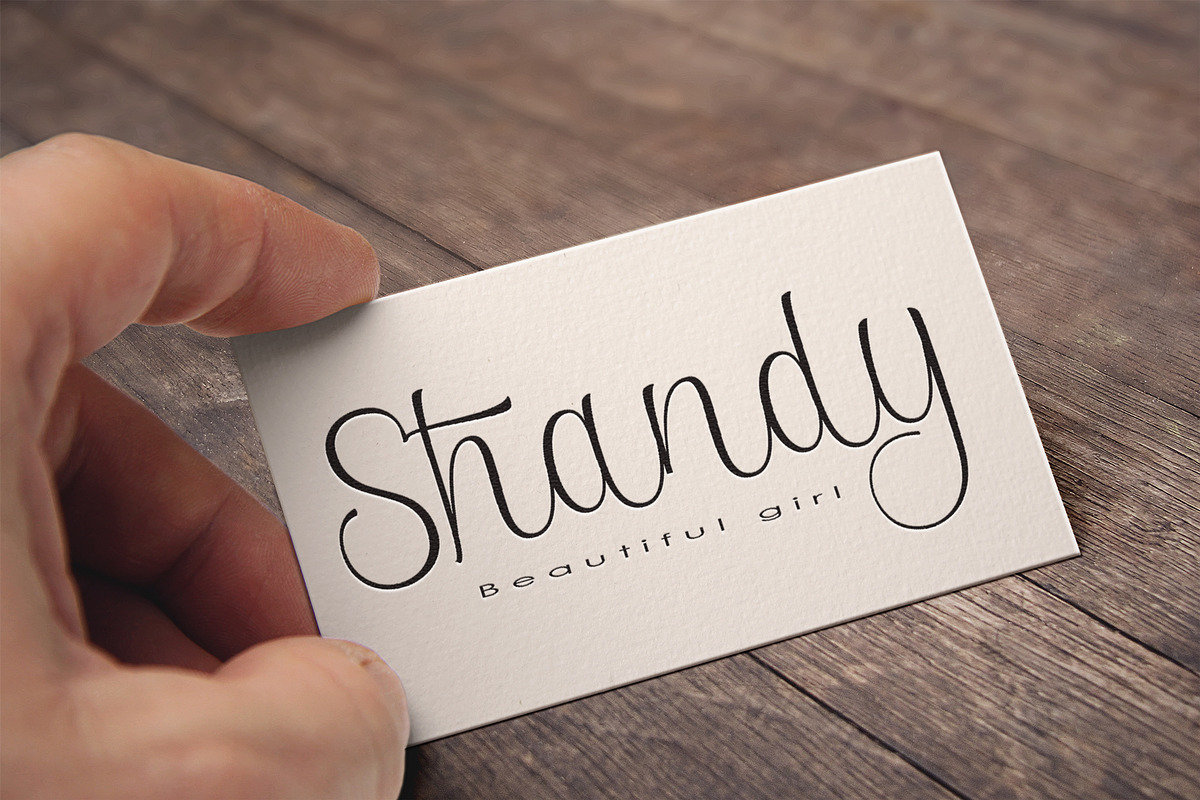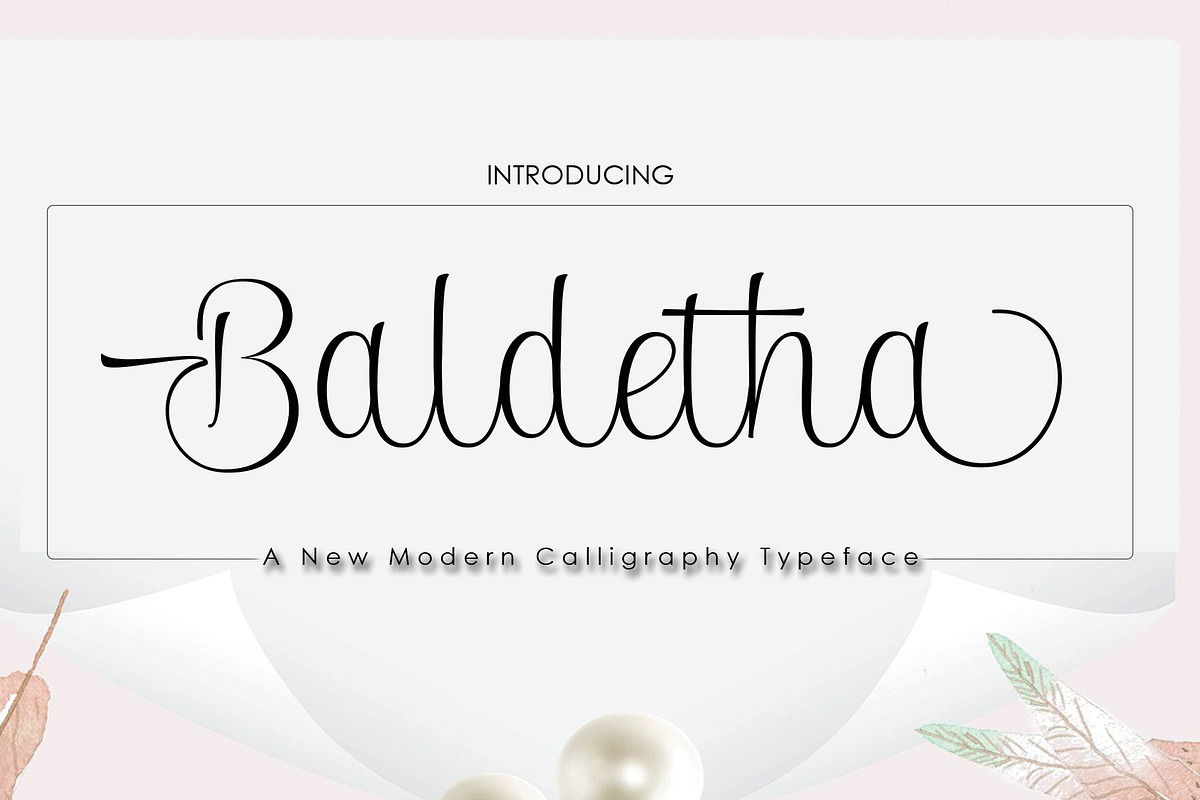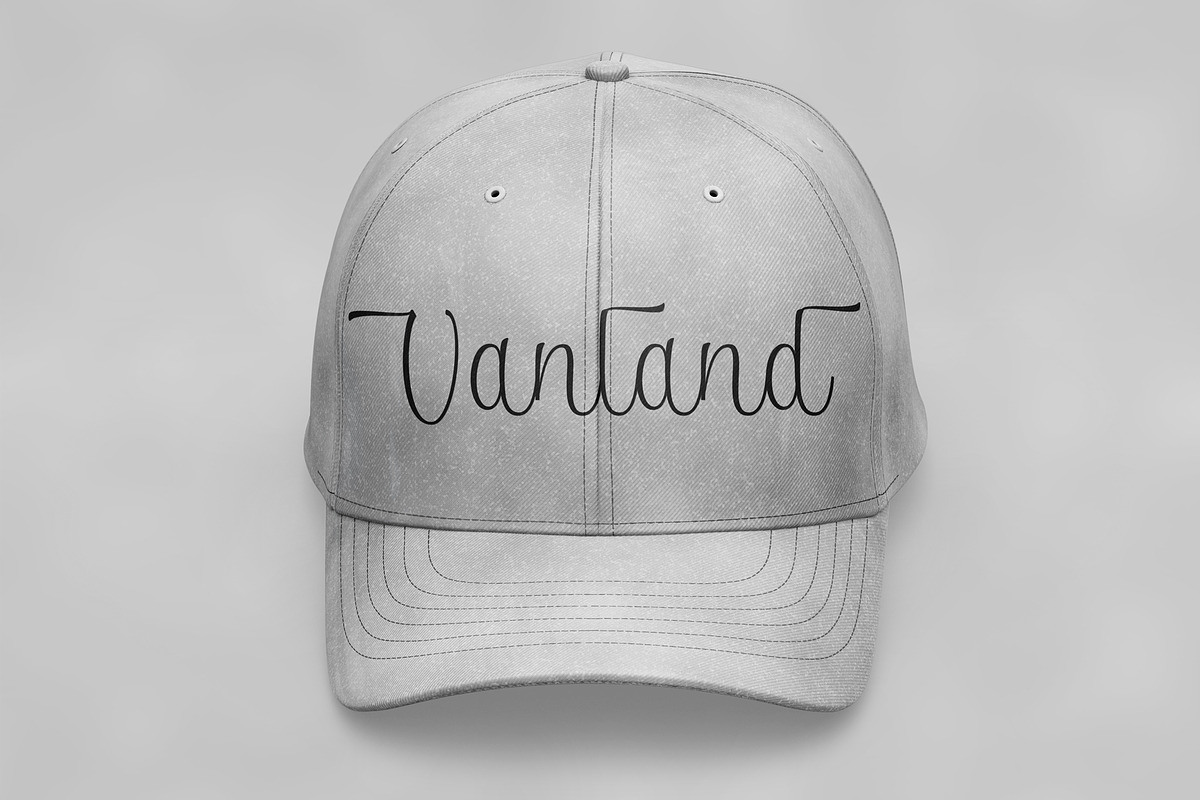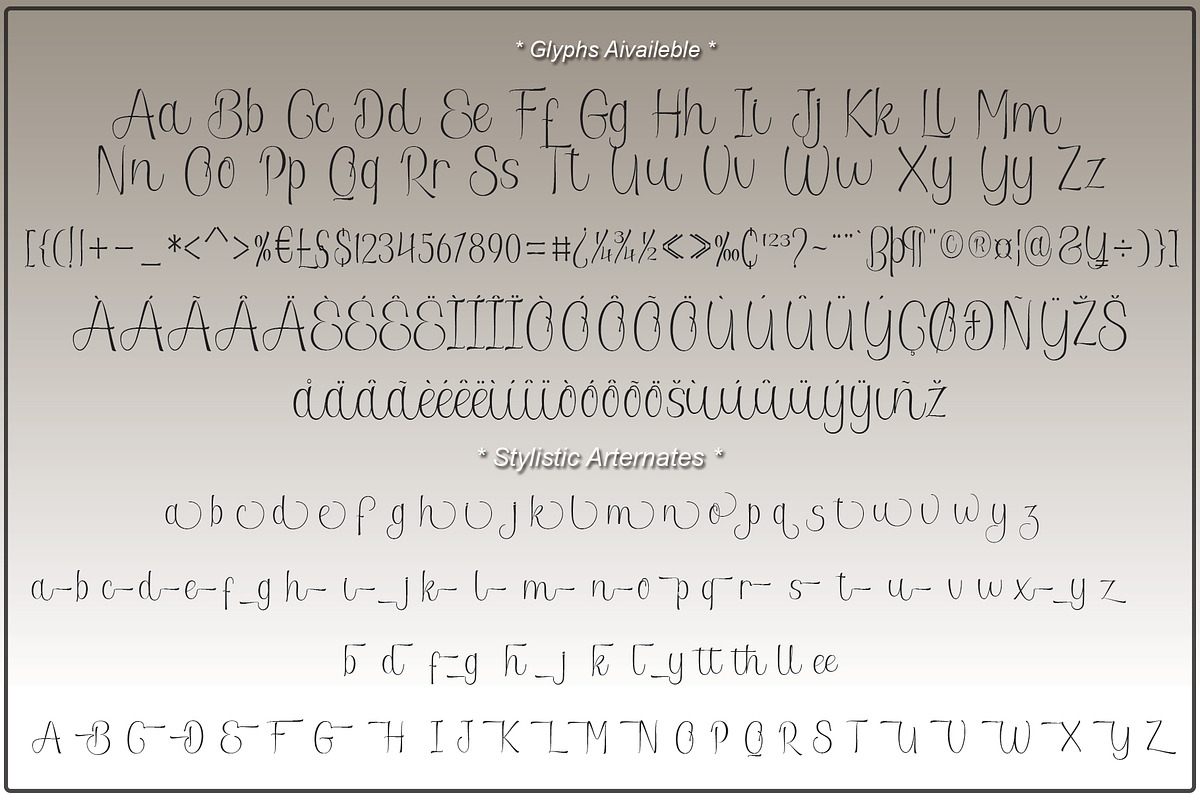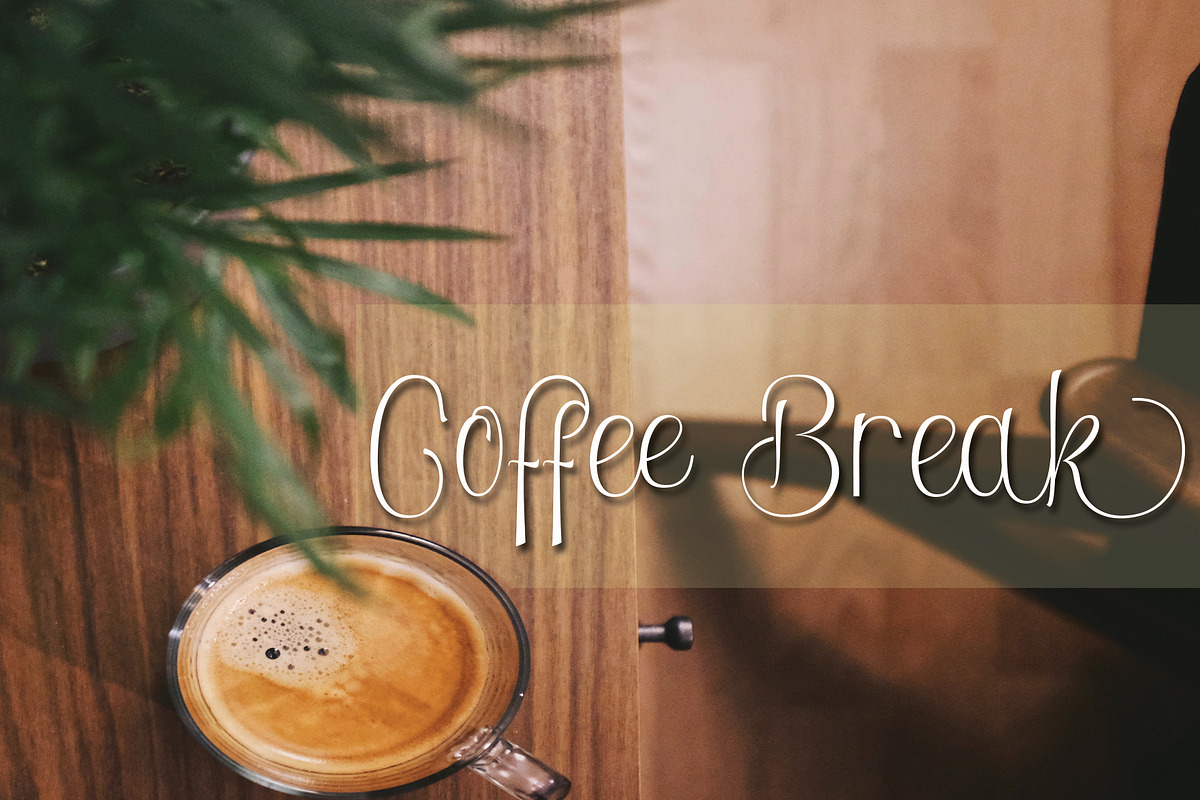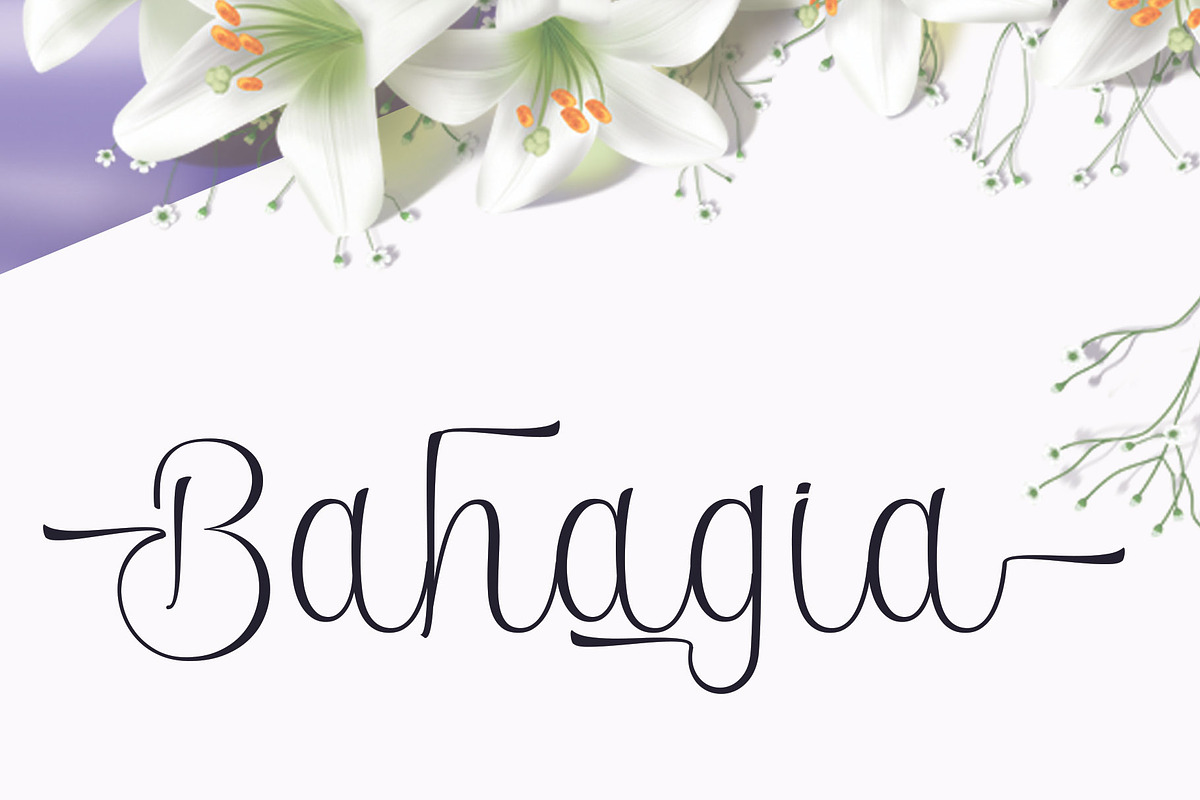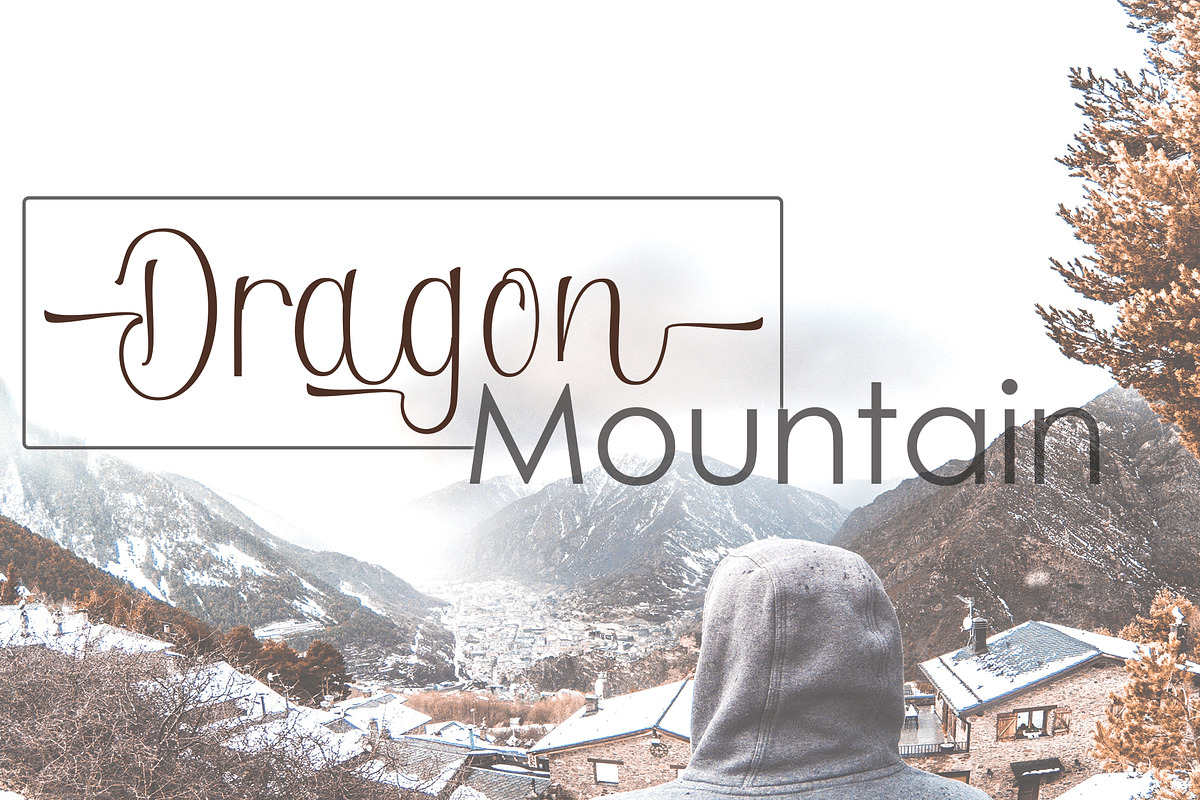
Baldetha
Baldetha is an elegant calligraphy and natural Font.
Baldetha Modern Calligraphy is perfect for wedding designs, shared moments, branding projects, logos, social media posts, advertisements, product packaging, product design, labels, photography, watermarks, invitations, stationery, and any project that requires a handwritten feel.
A font that made the hand by having the character up and down like a dancer. Baldetha has a very unique style of calligraphy, it is very suitable for use in the work of modern design.